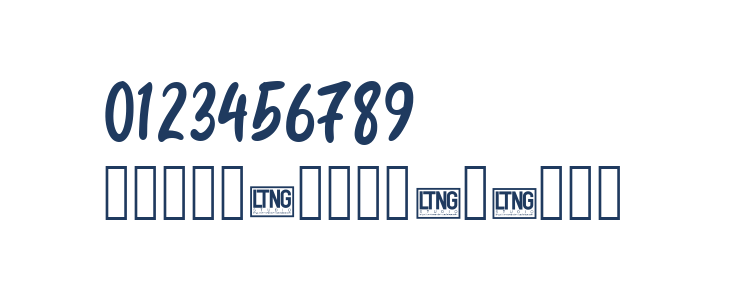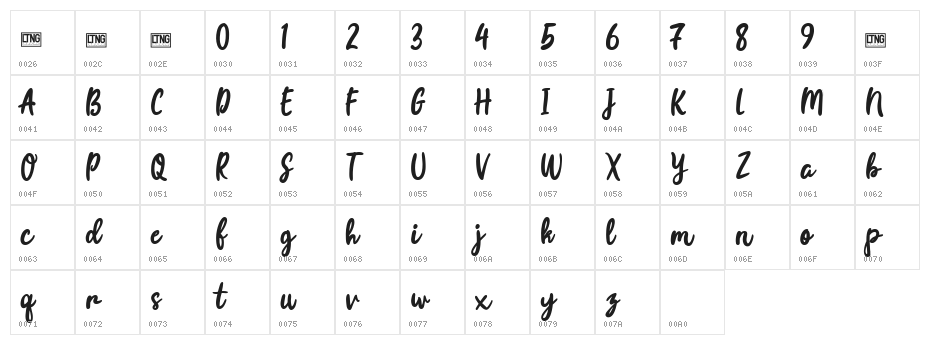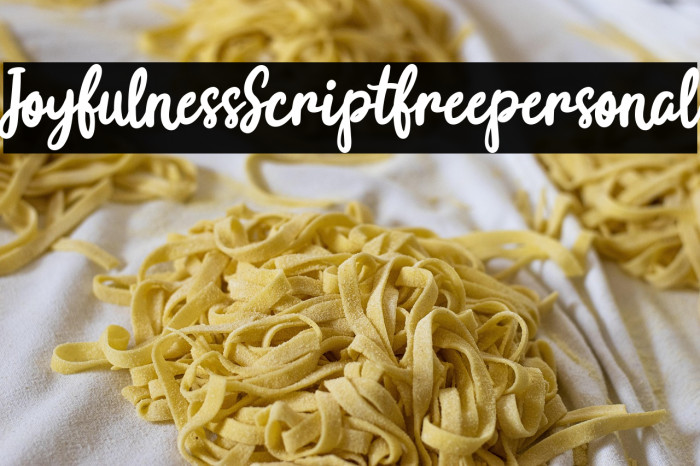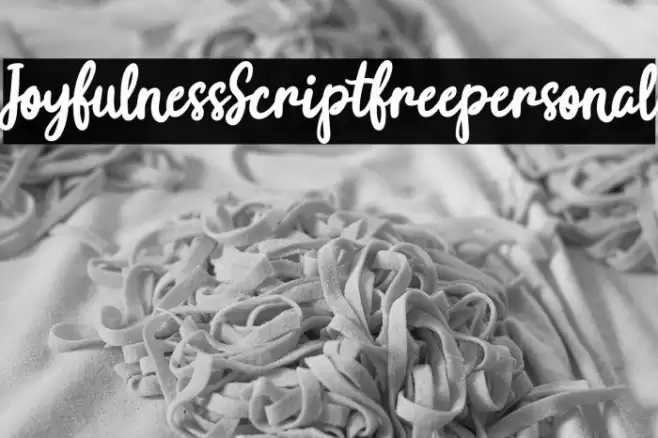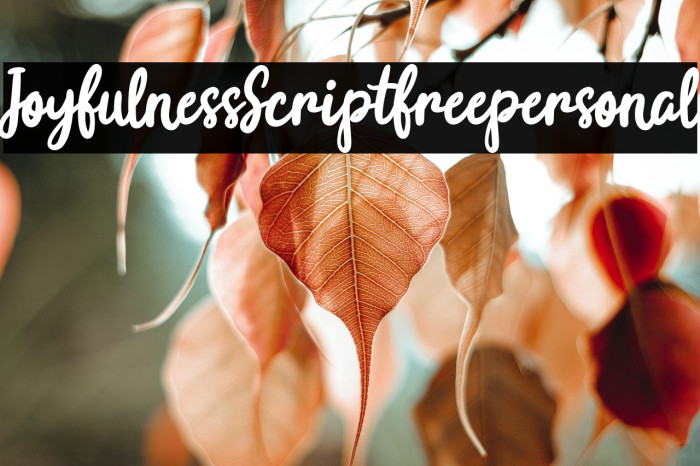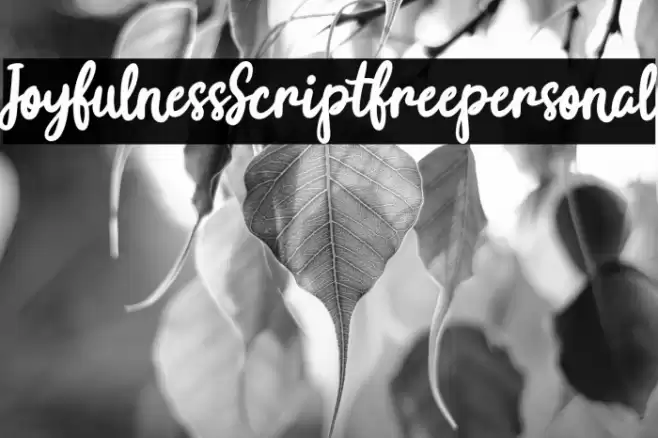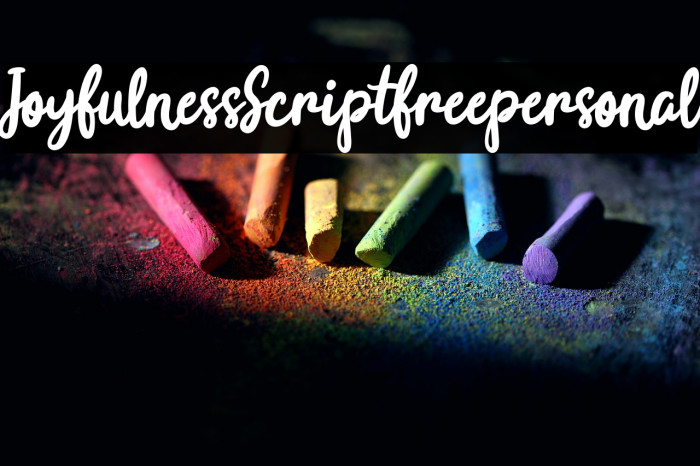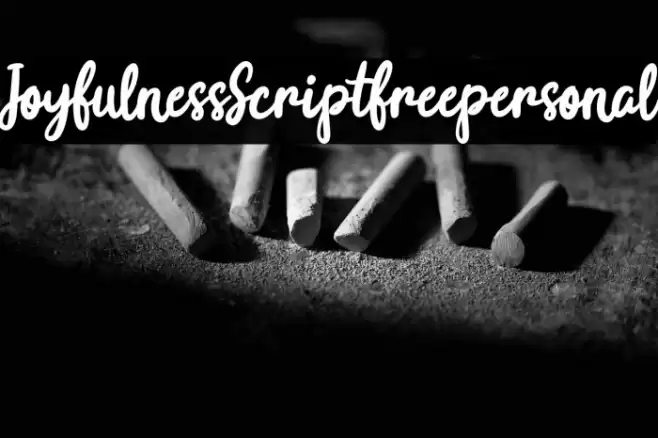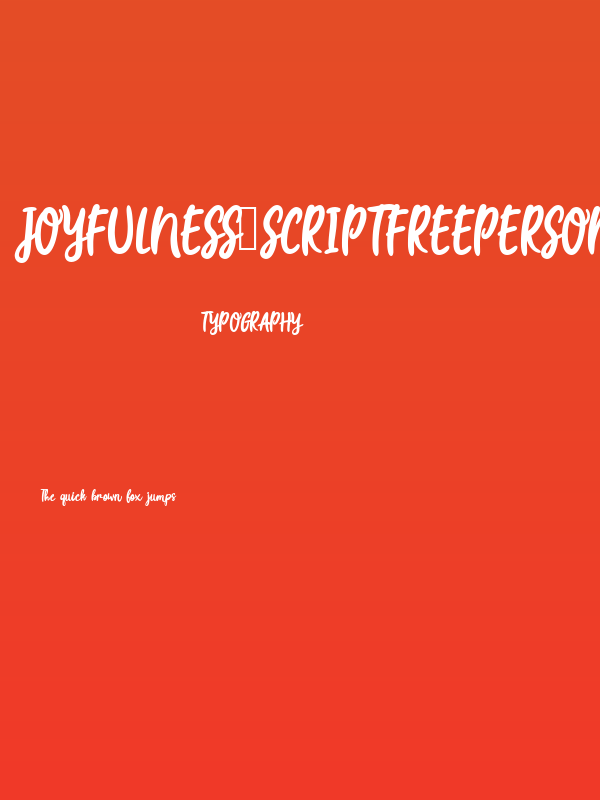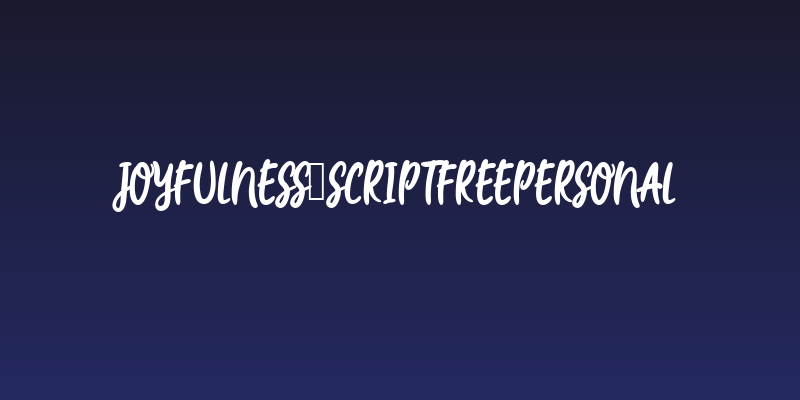
Joyfulness-Scriptfreepersonal Font
Joyfulness-Scriptfreepersonal Description
This font exudes a playful and energetic vibe with its bold, flowing script style. The characters are connected in a smooth, cursive manner, giving it a handwritten feel. The uppercase letters are slightly more structured, while the lowercase letters maintain a consistent fluidity. The numbers and special characters follow the same lively design, making the font versatile for various creative projects. Its bold strokes and rounded edges contribute to a friendly and approachable appearance, ideal for designs that aim to convey warmth and joy.